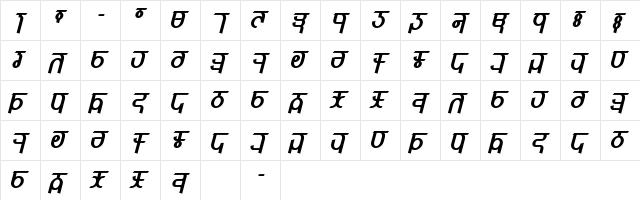
Qijomi Bold Italic Font Preview
| Foundry | Neale Davidson |
| Designer | Neale Davidson |
Design Context for Qijomi Typeface
Qijomi takes a measured approach to typography — its balanced proportions and neutral character make it a reliable workhorse for both digital and print work. Its italic angle brings a sense of urgency and motion to the letterforms. The heavy weight commands attention and anchors typographic hierarchies.
Pro Tip: Try Qijomi for annotation and caption copy alongside an upright companion — the contrast in angle creates a dynamic but ordered typographic system.